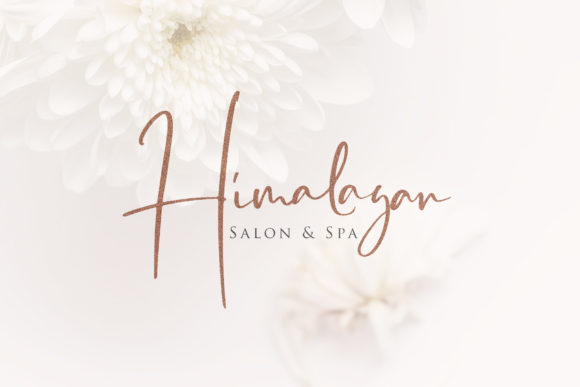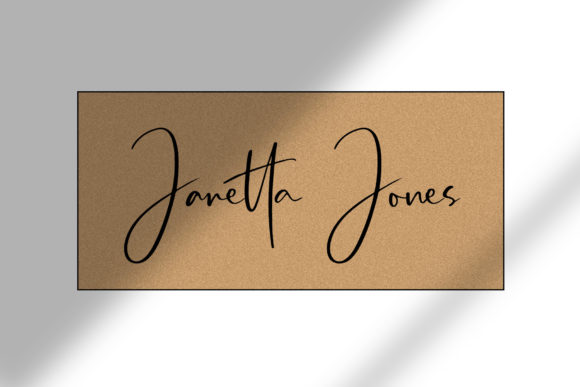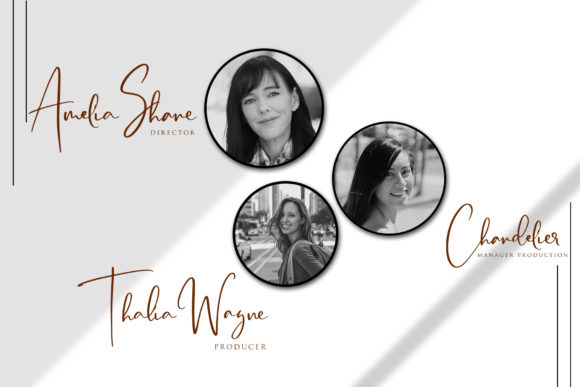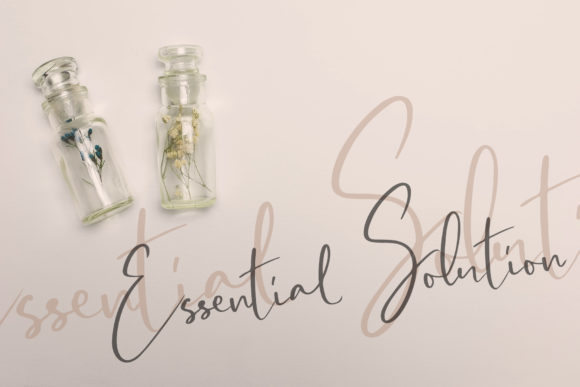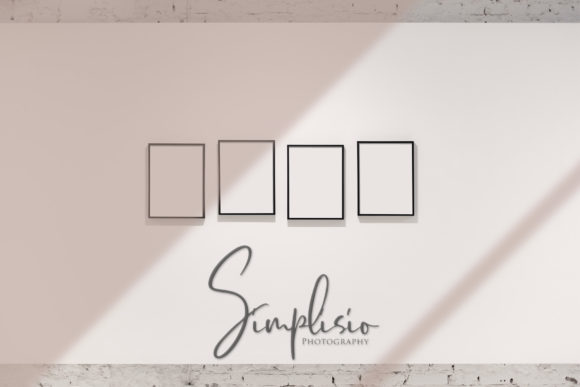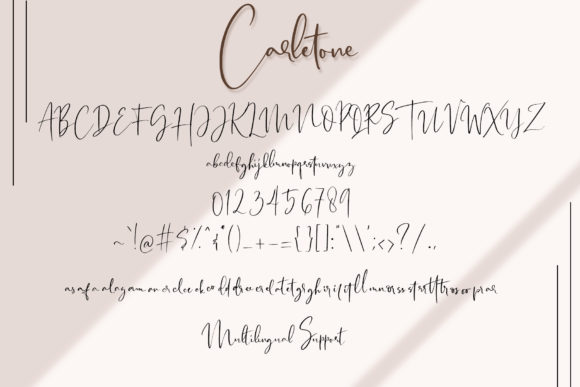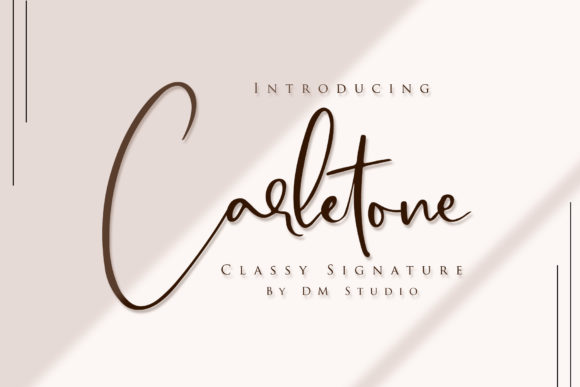
Introducing Carletone Font: Elevate Your Designs with a Stunning Script
Carletone is a breathtakingly beautiful and light script font that embodies a contemporary feel, perfect for designers and crafters looking to make their designs stand out. With its elegant and fluid strokes, Carletone has the power to transform any design idea into a stunning masterpiece. In this article, we’ll dive into the world of Carletone Font, exploring its features, benefits, and uses, as well as provide tips on how to make the most of this incredible font.
The Features of Carletone Font
Carletone Font boasts a range of features that make it an ideal choice for designers and crafters. Some of its key characteristics include:
- Contemporary feel: Carletone’s modern design ensures that your designs look fresh and up-to-date, perfect for brands and businesses looking to make a statement.
- Light script: The font’s light and airy feel makes it perfect for use in a variety of design applications, from logos and branding to packaging and advertising.
- Elegant strokes: Carletone’s fluid and elegant strokes add a touch of sophistication to any design, making it ideal for high-end brands and luxury products.
- Versatile: Carletone is a versatile font that can be used in a range of design applications, from digital to print.
The Benefits of Using Carletone Font
So, why choose Carletone Font for your design projects? Here are just a few benefits of using this stunning script font:
- Instantly elevates your designs: Carletone’s elegant and modern design instantly elevates your designs, making them stand out from the crowd.
- Perfect for branding and advertising: The font’s contemporary feel and elegant strokes make it perfect for use in branding and advertising, helping to create a lasting impression on your target audience.
- Easy to read: Despite its elegant and fluid strokes, Carletone is surprisingly easy to read, making it perfect for use in body copy and other text applications.
- Supports multiple languages: Carletone supports multiple languages, making it a great choice for designers and businesses with a global audience.
Using Carletone Font in Your Designs
So, how can you use Carletone Font in your designs? Here are a few ideas to get you started:
- Logos and branding: Use Carletone to create a stunning logo or brand identity that will help your business stand out.
- Packaging design: Add a touch of elegance to your packaging designs with Carletone, perfect for luxury products and high-end brands.
- Advertising: Use Carletone in your advertising campaigns to create eye-catching and effective ads that will grab the attention of your target audience.
- Digital design: Carletone is perfect for use in digital design applications, from social media graphics to website headers.
Tips for Working with Carletone Font
Here are a few tips for working with Carletone Font:
- Use it sparingly: While Carletone is a beautiful font, it’s best used sparingly to avoid overwhelming your design.
- Pair it with a sans-serif font: Pair Carletone with a sans-serif font to create a striking contrast that will add visual interest to your design.
- Experiment with colors: Carletone looks stunning in a range of colors, so don’t be afraid to experiment and find the perfect hue for your design.
Carletone Font is a stunning and versatile script font that is perfect for designers and crafters looking to elevate their designs. With its contemporary feel, elegant strokes, and light script, Carletone has the power to transform any design idea into a standout masterpiece. Whether you’re working on a logo, branding, packaging, or advertising campaign, Carletone is sure to make a lasting impression. So why not give Carletone a try and see the difference it can make in your designs?